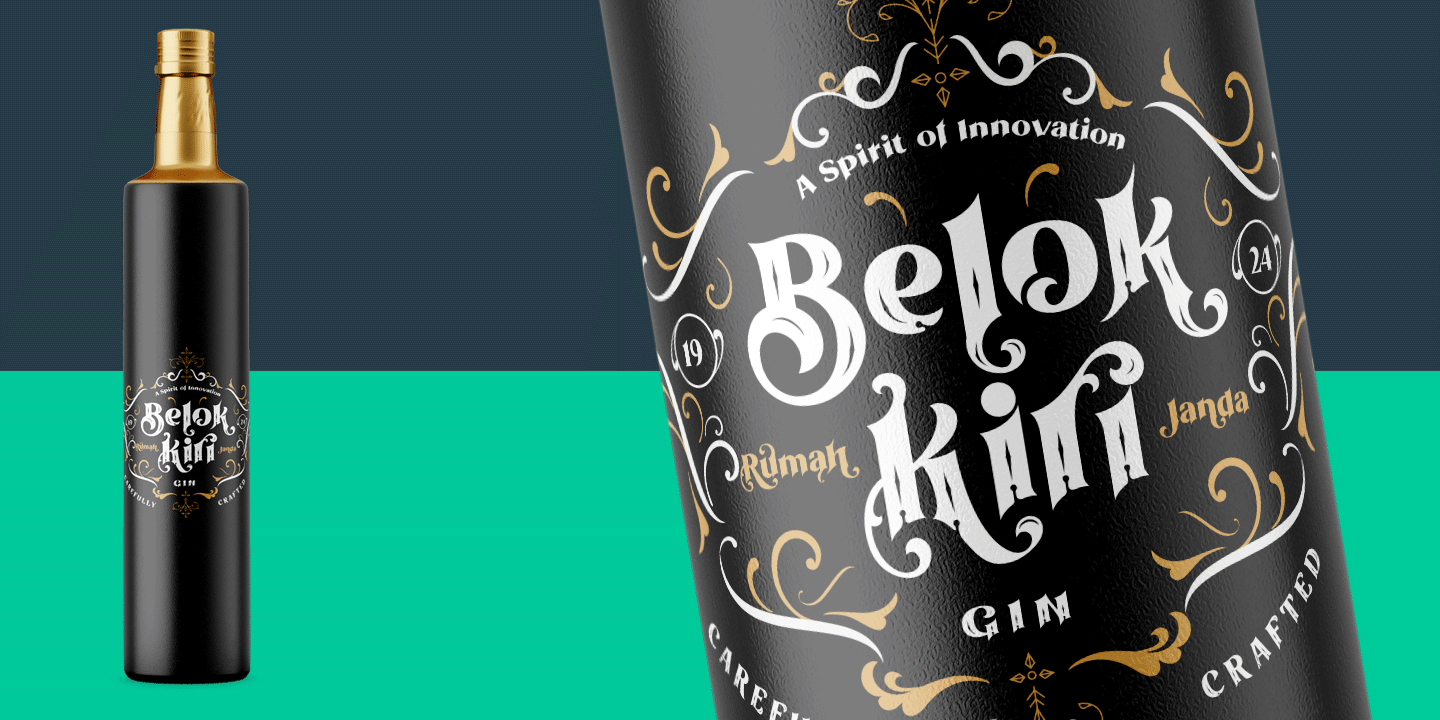
Othelie Font is perfect for literary publications, poetry books, classical theater programs, artistic exhibitions, cultural event posters, vintage bookstore signage, academic conference materials, philosophical journals, heritage museum displays, and any projects that require distinctive typography with intellectual sophistication and literary elegance.
What makes Othelie Font exciting is its profound literary character that captures the essence of classical literature and intellectual discourse with letterforms that seem to carry the weight of great thoughts and timeless wisdom. This distinguished typeface features scholarly characteristics with refined proportions that evoke library reading rooms, leather-bound books, and the contemplative atmosphere where great minds gather to explore ideas that shape human understanding. The font's intellectual character makes it perfect for institutions and publications seeking to communicate depth, wisdom, and the enduring value of scholarly pursuit and literary excellence.
Othelie Font family includes scholarly style variations featuring light, regular, medium, and bold weights. The font family also offers italic versions with enhanced literary flow, along with decorative alternates and classical ligatures that provide sophisticated customization options. Special features include academic ornaments, literary symbols, and scholarly decorative elements that enhance the intellectual atmosphere of educational and cultural design applications.